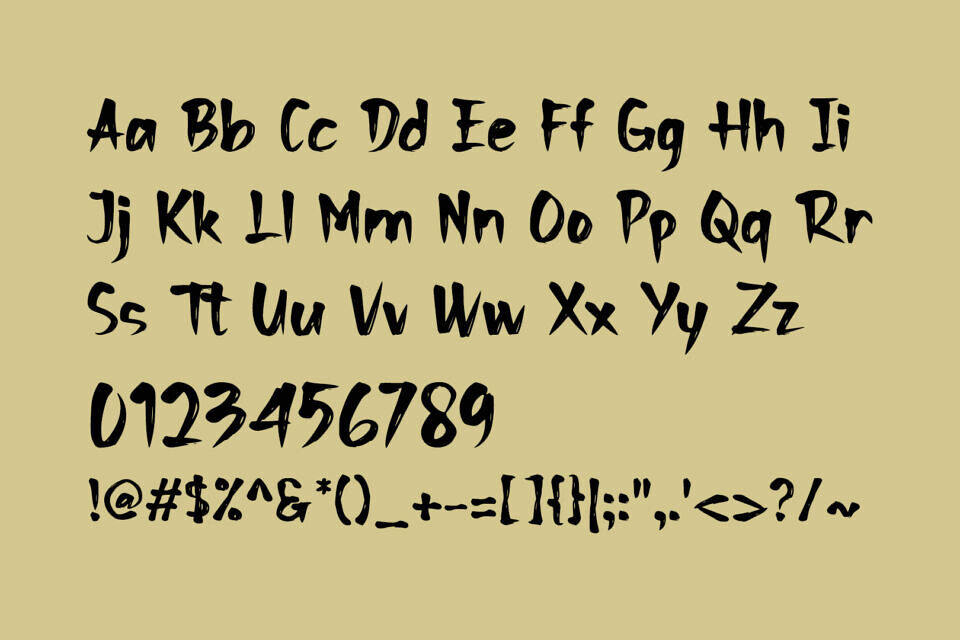
SPIRIT TIMOR is a charming handwritten font crafted by Studio Hello Good. Featuring 198 characters and 139 glyphs, it offers a playful, brush-style aesthetic ideal for casual designs and creative branding. Its cute and expressive style adds a friendly, artistic touch to any design.